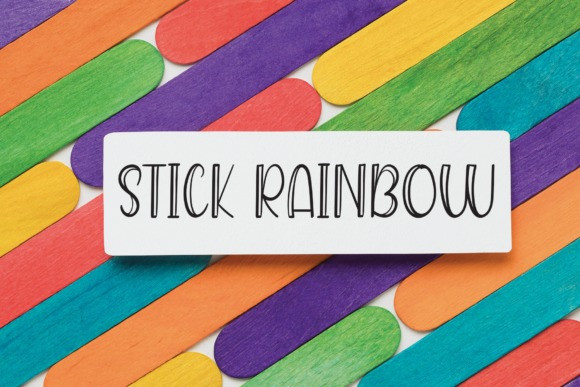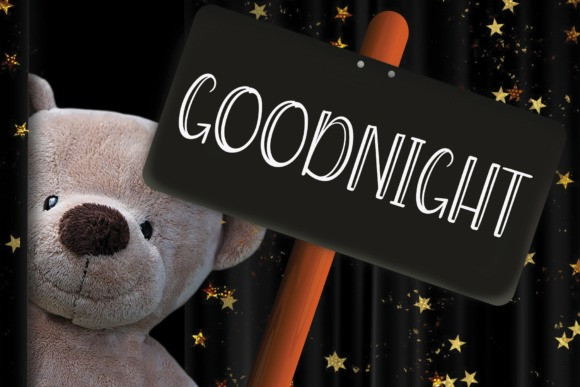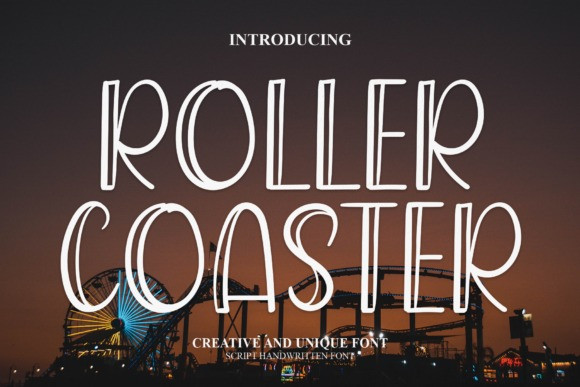
Roller Coaster Font
Roller Coaster Font is a unique and friendly display font that works well with any creative idea! Use it on back-to-school designs, storybooks, magazines, mugs, apparel, invitations, and many others.